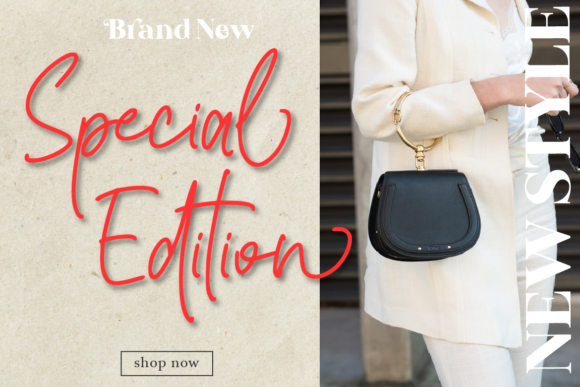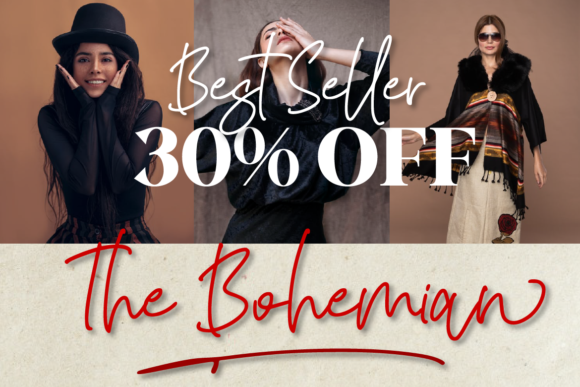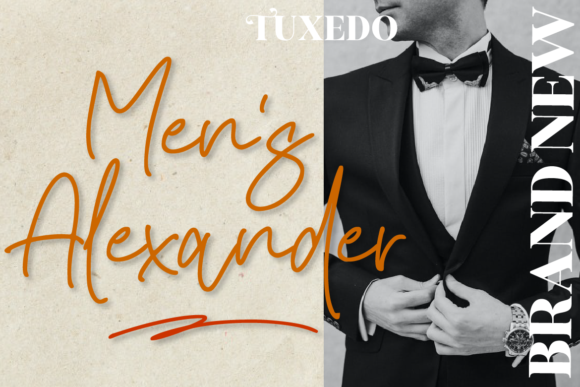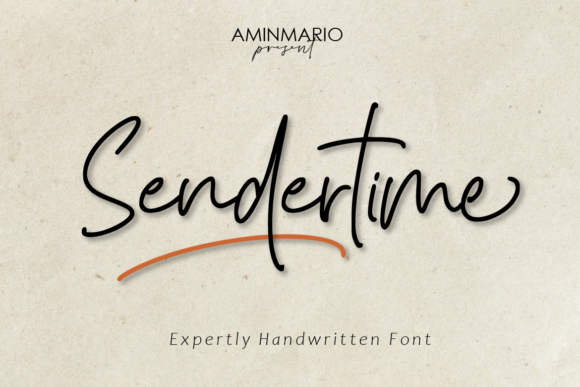
Introduction to Sendertime Font
Sendertime is a beautiful light handwritten font with a unique feel and a stunning impact.
It will add a luxury spark to any design project that you wish to create This font is PUA encoded which means you can access all of the amazing glyphs and ligatures with ease.
Why Choose Sendertime Font?